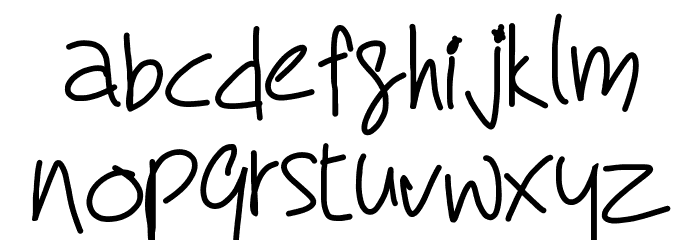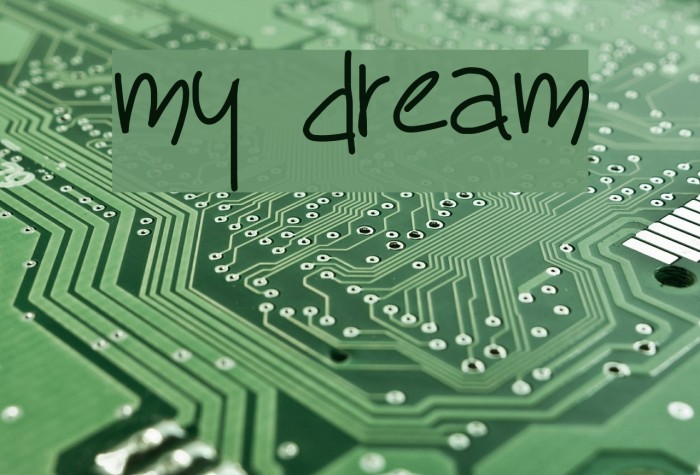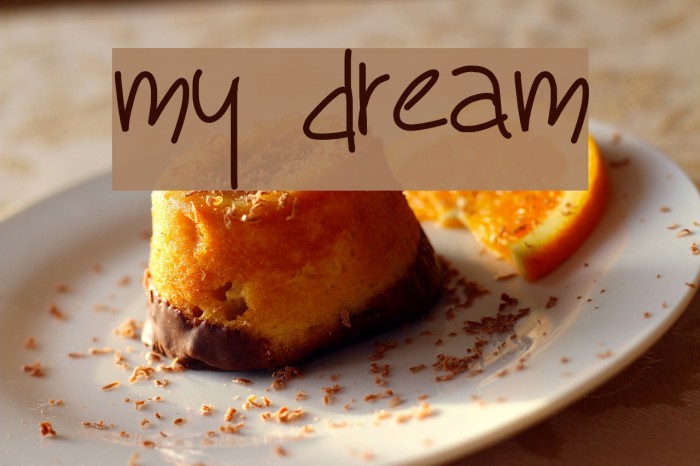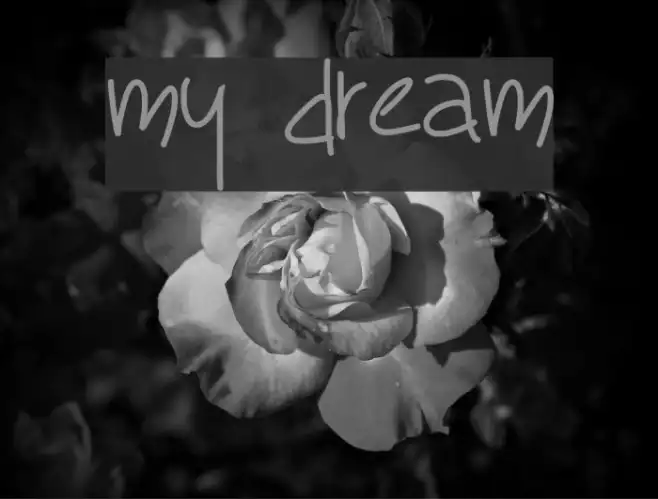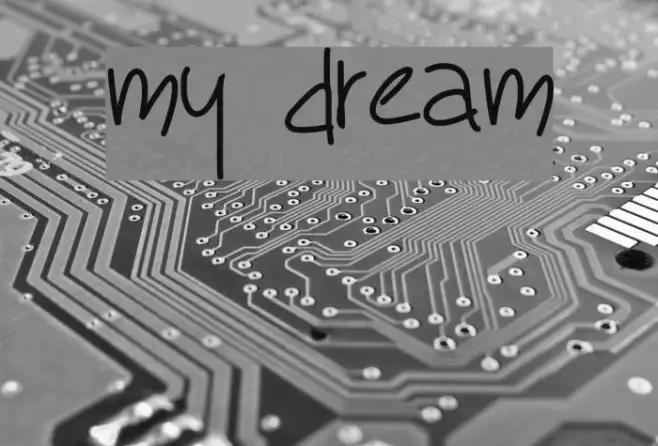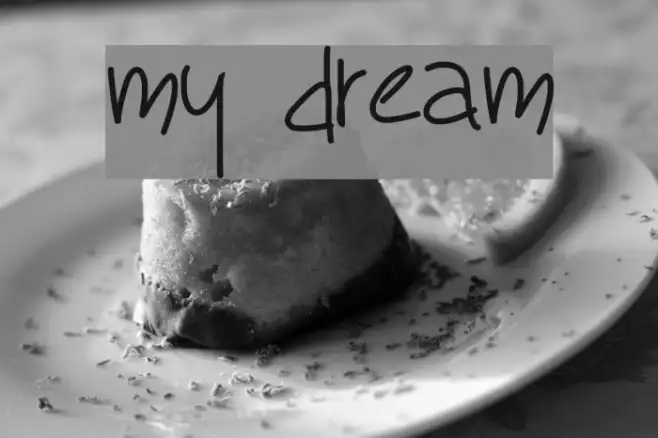
my dream Font
This font features a playful and informal handwritten style, characterized by its irregular strokes and casual appearance. The letters are slightly slanted, giving it a dynamic and lively feel. The strokes vary in thickness, adding a sense of spontaneity and personal touch. The overall look is friendly and approachable, making it suitable for projects that require a personal or creative touch. The font maintains a consistent baseline, ensuring readability while still conveying a sense of individuality.
A playful, informal handwritten font with irregular strokes and a casual appearance.
- Proposed Projects: Ideal for greeting cards, personal blogs, creative projects, and informal branding.
- Overall Style: Casual, Playful
- Use Case: Creative projects, Informal branding